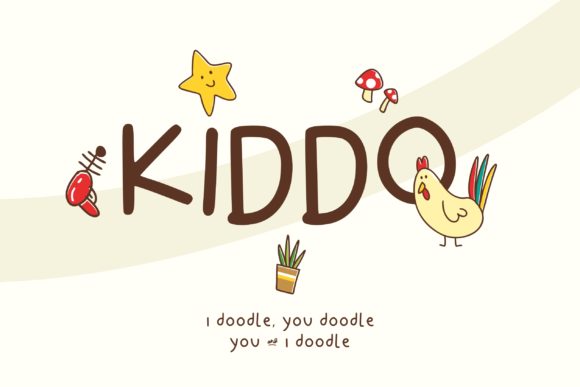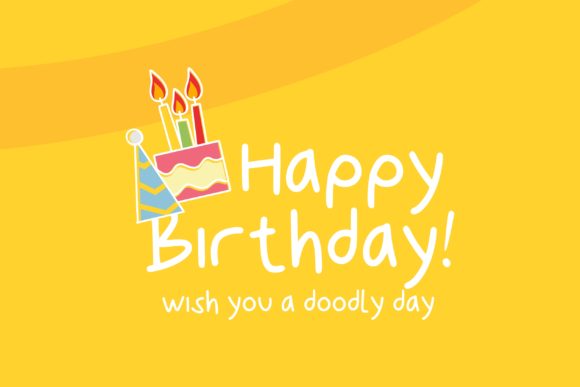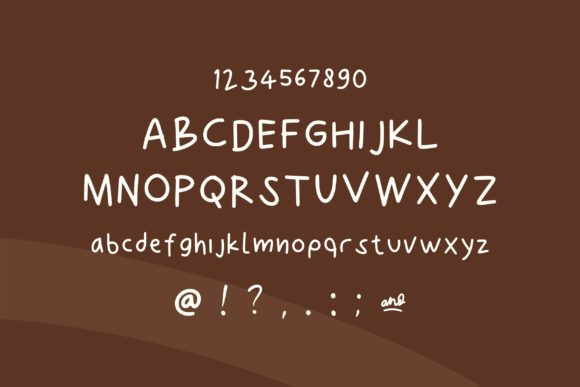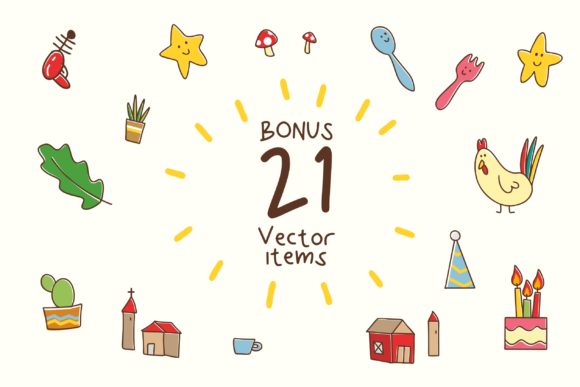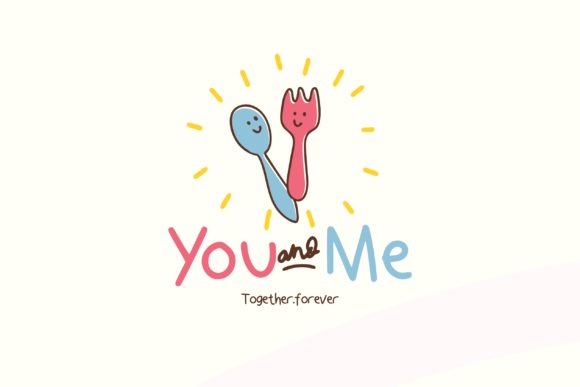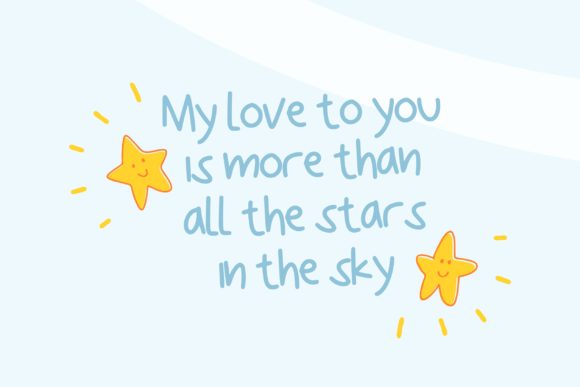
Kiddo Font
About Kiddo Font
Kiddo is a sweet and fun handwritten font. It features a relaxed and casual style that will elevate a wide range of design projects to the highest level, be it branding, headings, wedding designs, invitations, signatures, logos, labels, and much more!